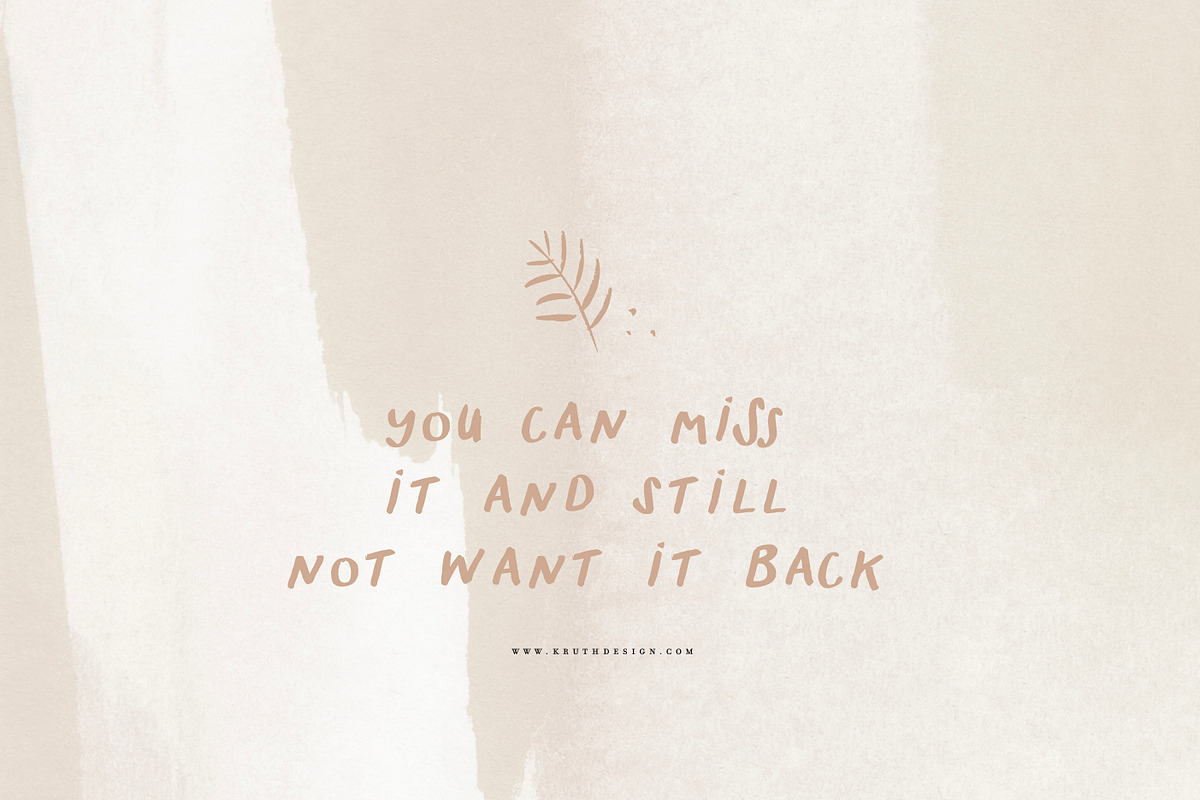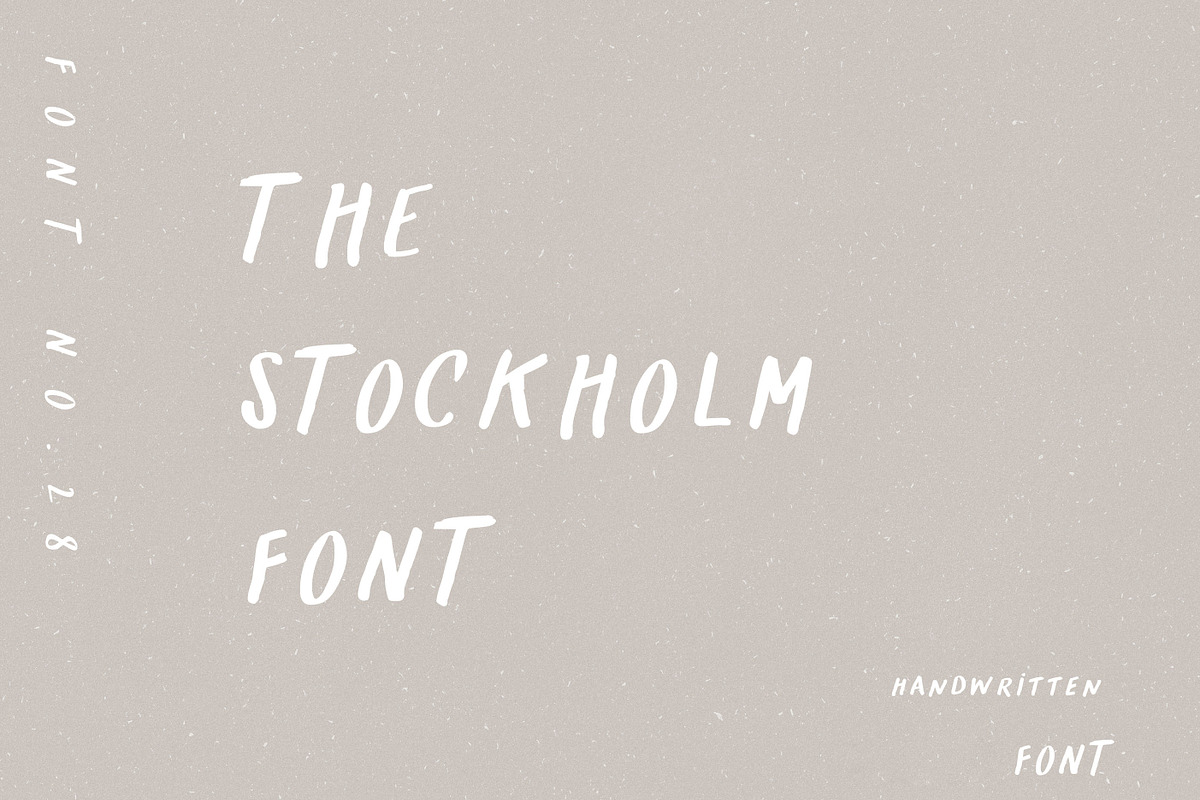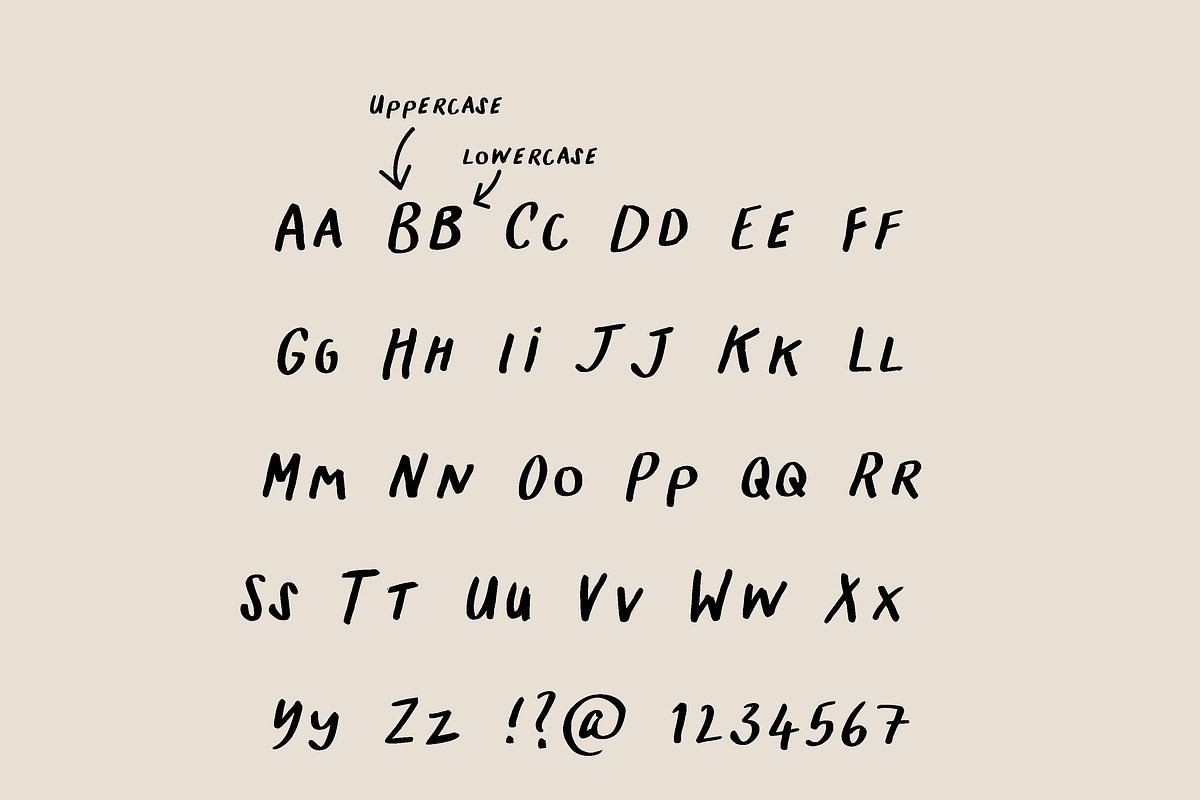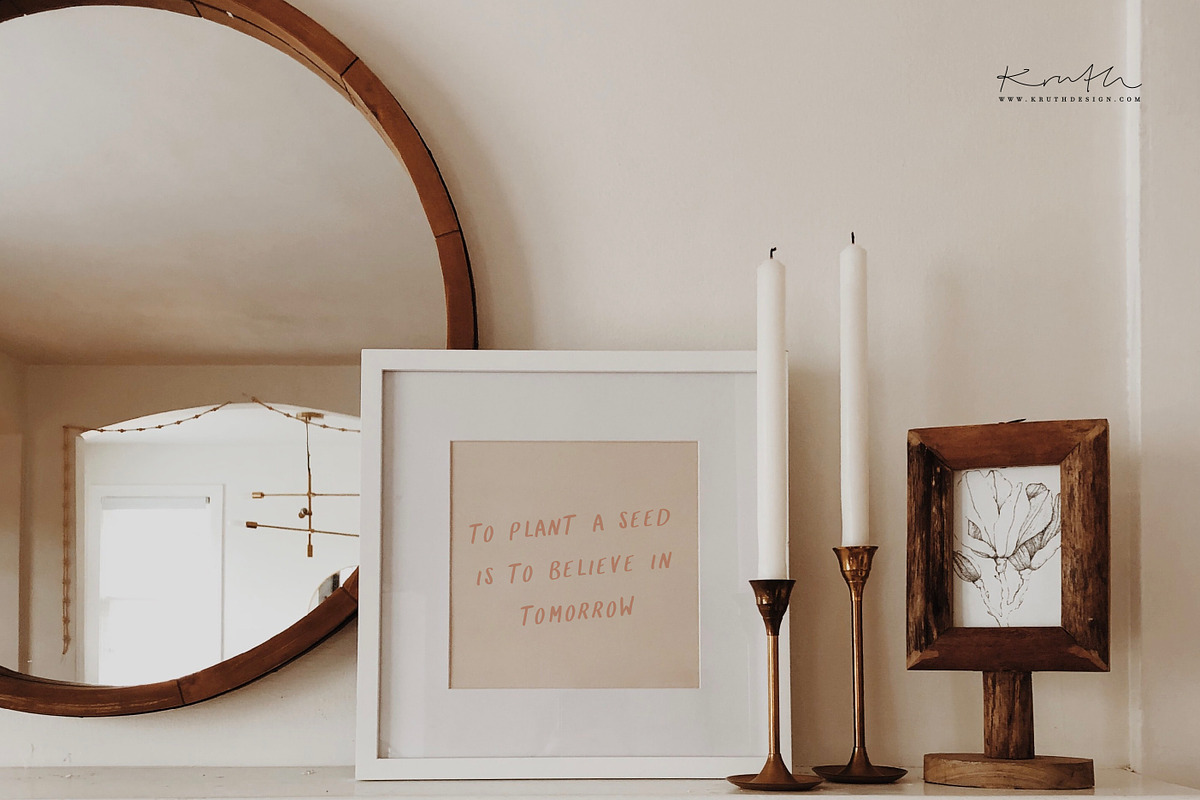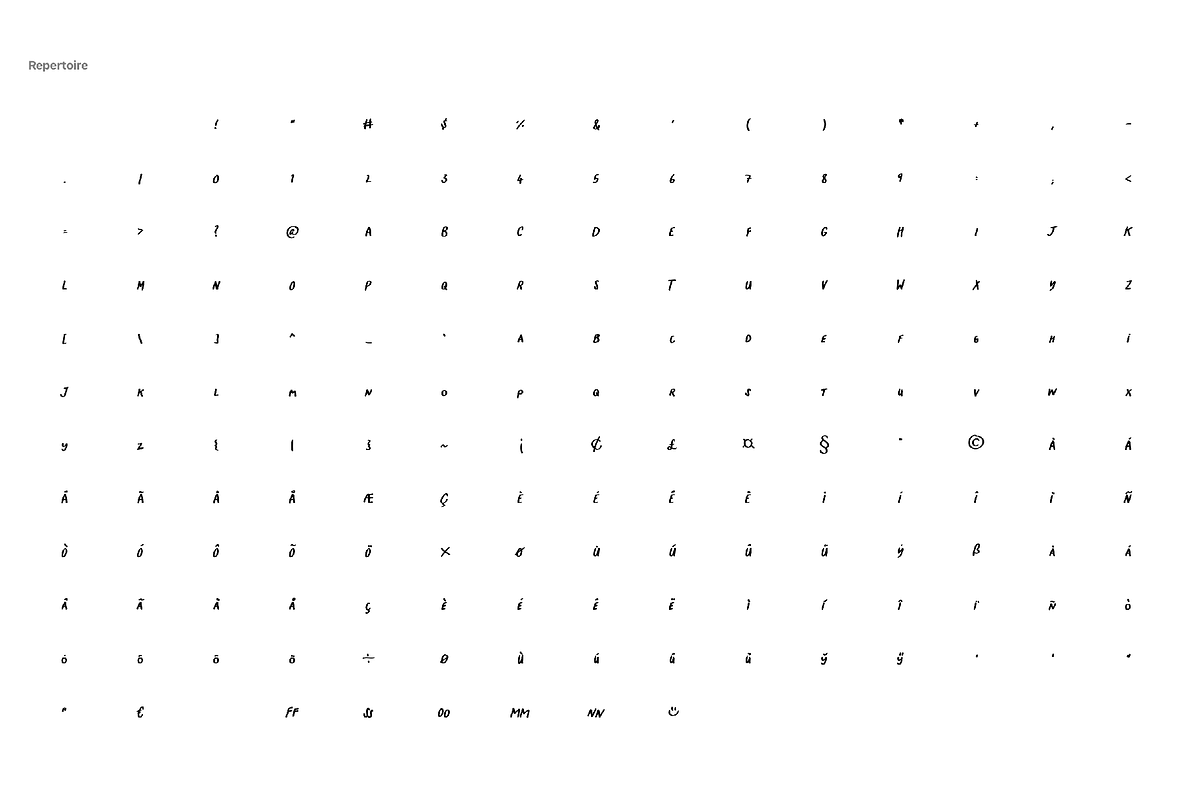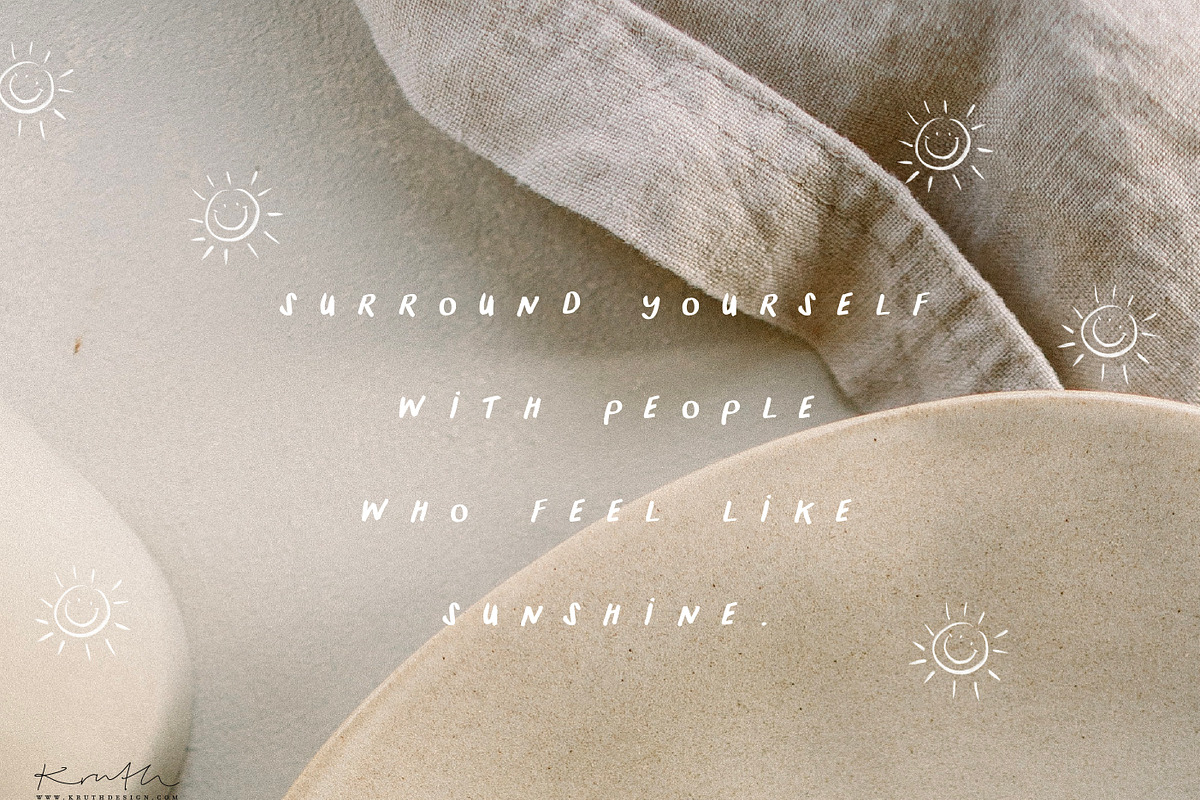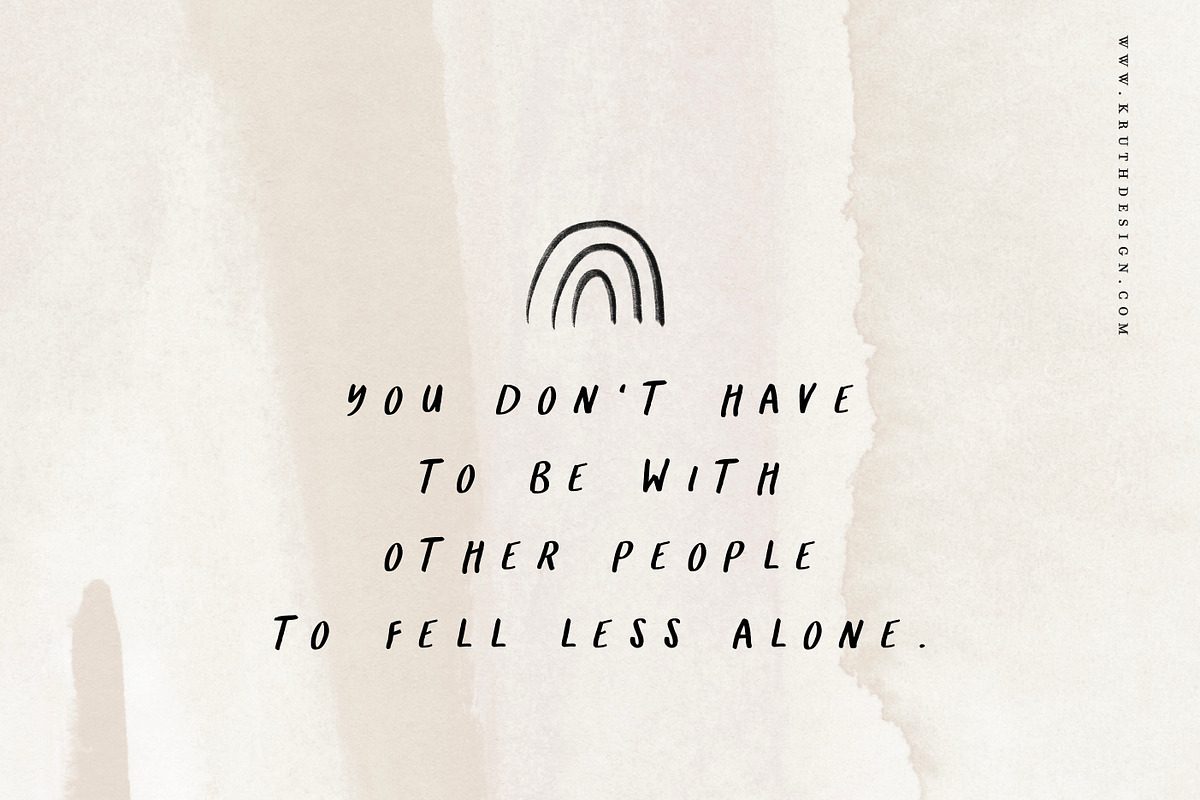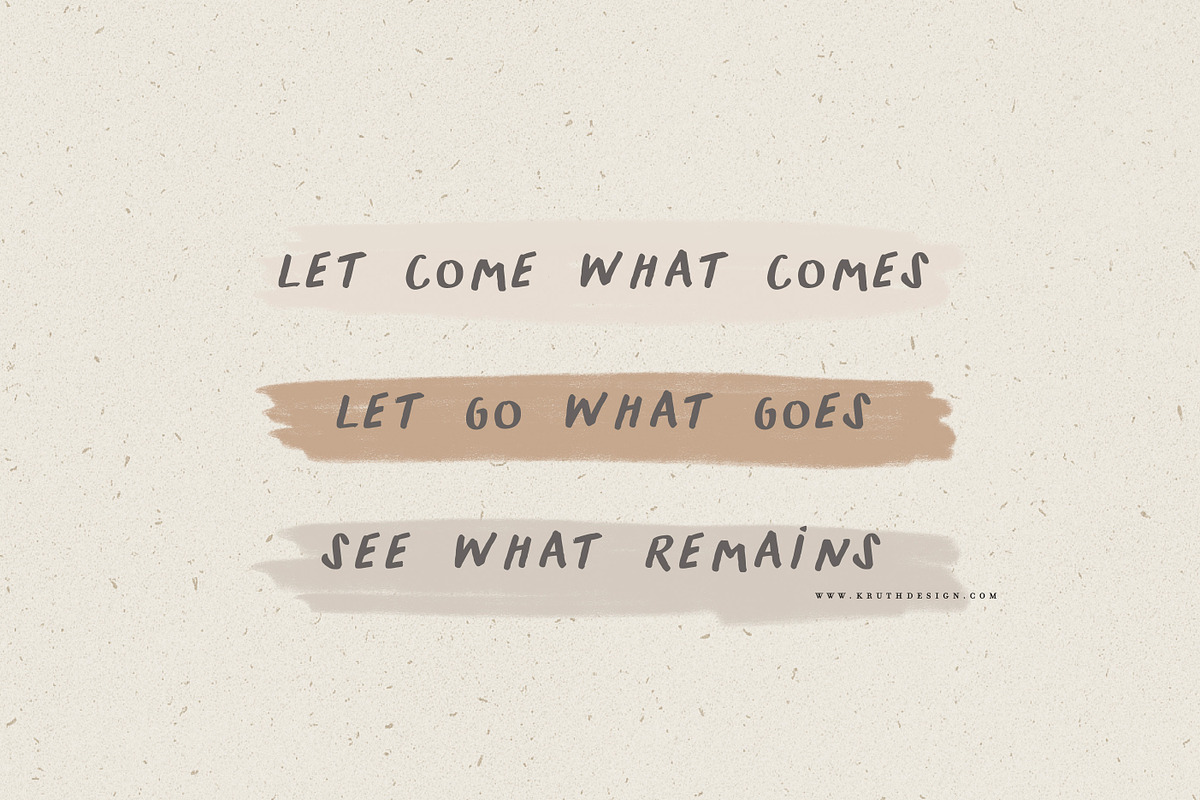
THE STOCKHOLM FONT / handwritten
Where are the lower case!
Thank you very much for your feedback! You can always reach me with questions and co via direct message, sometimes that's even nicer before you give a “one star” rating ;-) The uppercase and lowercase letters are included in the font order and the great thing is that you can even test them with your desired text on this platform before your purchase. Let me know if I can help you with anything else. Best regards from Germany Maren
I have been looking for a font like this!! I finally font my go-to font for my brand. I'm going to use this for headings on my website. I just have one question though, I'm having a hard time finding a font to pair it with for paragraphs- something easily readable but not too basic. What do you recommend?
Thank you very much for your feedback! You can achieve the different letters by using upper and lower case letters. The kerning is deliberately "imperfect" to support the loose handwriting design. Nevertheless, I am always happy to receive suggestions! Always let me know if I can adjust something for you.